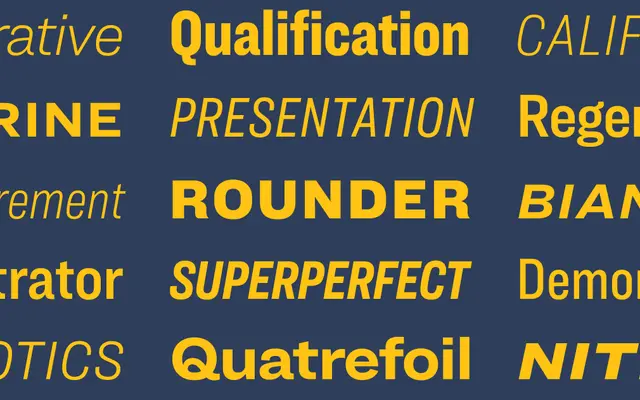
Ringside
Ringside specimen from Hoefler & Co
An American grotesque superfamily built for text, with six widths that each take different design decisions instead of stretching one master.
A sans-serif superfamily by H&Co that picks up from Knockout but is drawn for text rather than headlines. Ringside spans six widths (Compressed, Condensed, Narrow, Regular, Wide and Extra Wide), each with a companion italic and a range of weights, and adds a ScreenSmart cut for small-size screen work. Each width takes its own design decisions: the Compressed and Condensed pair flat-sided romans with swelling italics, the Narrow and Regular favour rounder forms, and the Wide and Extra Wide introduce fully curved characters with diagonal stroke endings. Tabular figures, fractions and an extended character set make it serviceable for editorial systems, identity work and information design that needs typographic variety inside one family.
H&Co describe Ringside as a sans-serif system designed for diversity rather than homogeneity, picking up from Knockout but built for text, with six widths that take different design decisions instead of uniformly stretching one master.